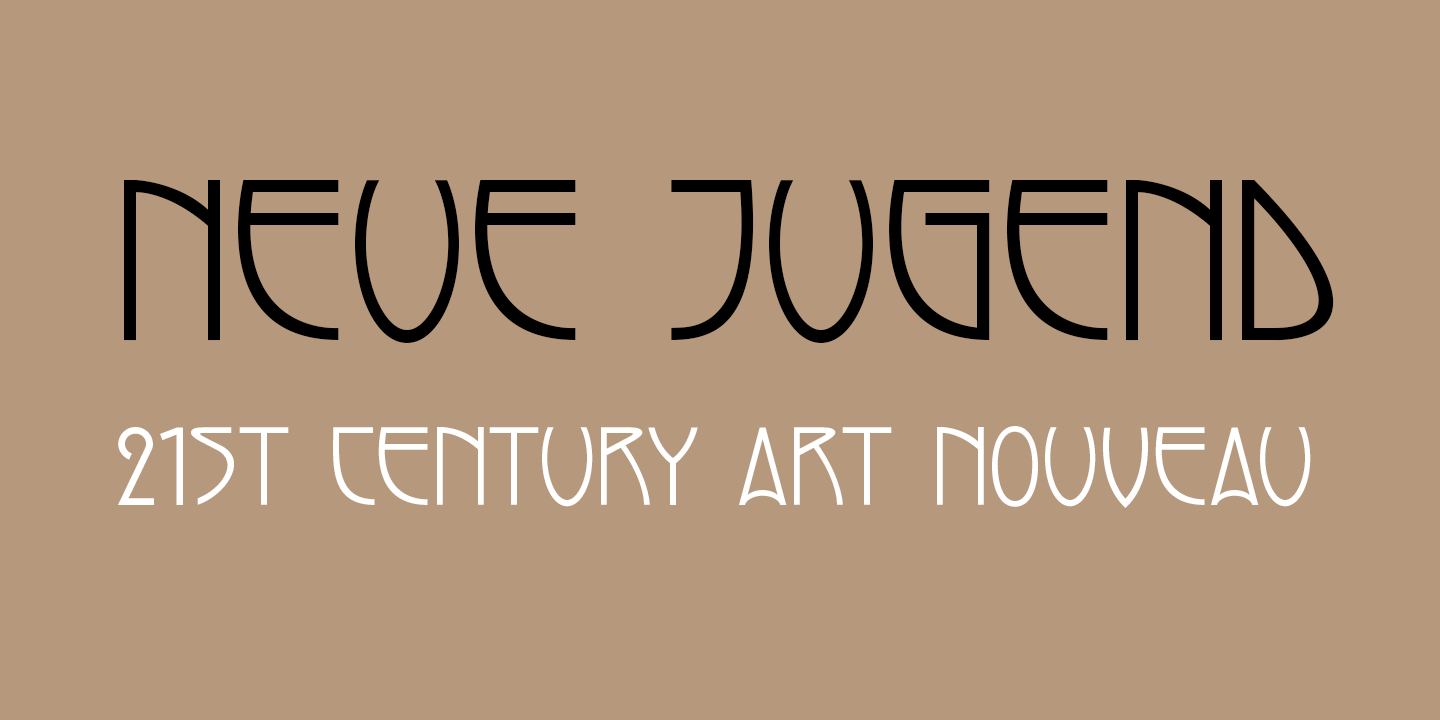
Neue Jugend Font is perfect for youth empowerment organizations, modern student movement branding, progressive educational institutions, young professional networks, contemporary youth culture campaigns, and innovative generational change initiatives. Its dynamic character makes it ideal for youth advocacy groups, progressive universities, millennial marketing agencies, Gen Z lifestyle brands, and any application requiring forward-thinking typography that conveys youthful innovation, generational progress, and the revolutionary spirit of modern youth movements and contemporary social change.
Neue Jugend Font is exciting because it embodies the revolutionary energy and progressive vision of modern youth culture through dynamically contemporary letterforms that reflect the innovative thinking and social consciousness driving generational change. Its youthful proportions and progressive details evoke the unstoppable momentum of young activists and the transformative power of generational leadership, making it perfect for organizations harnessing youth energy for positive social impact. The font's youth character transforms communications into rallying cries for generational progress.
Neue Jugend Font family includes progressively-designed weight variations typically featuring Light, Regular, Medium, Semibold, and Bold options with contemporary styling that maintains youthful authenticity. The family often incorporates modern symbols, progressive elements, and youth culture icons designed for generational applications, providing designers with comprehensive tools for creating authentic, youth movement-focused typographic compositions.
When selecting youth empowerment typography solutions, Neue Jugend Font Free Download represents an exceptional choice for progressive and generational projects. This dynamic typeface brings instant youth movement authenticity to any design, making it invaluable for youth organizations, progressive institutions, and generational change advocates celebrating young leadership. Whether you're developing youth advocacy campaigns, creating progressive educational materials, or designing generational movement branding, Neue Jugend Font provides the youthful energy and progressive authenticity essential for inspiring generational change in today's youth-driven social transformation marketplace.